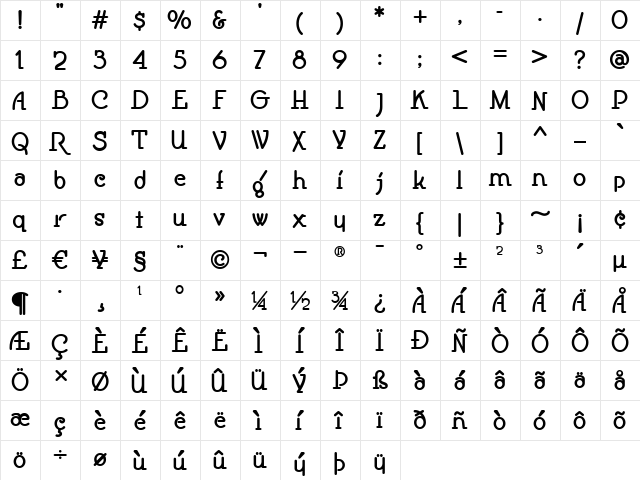
Speedball No1 NF Regular Font Preview
Speedball No1 NF Regular
Speedball No1 NF Regular Font Details
| Designer | Nick Curtis |
Design Context for Speedball No1 NF Typeface
Speedball No1 NF offers clean, dependable letterforms without strong stylistic allegiance, making it a practical choice for designers who need flexibility.